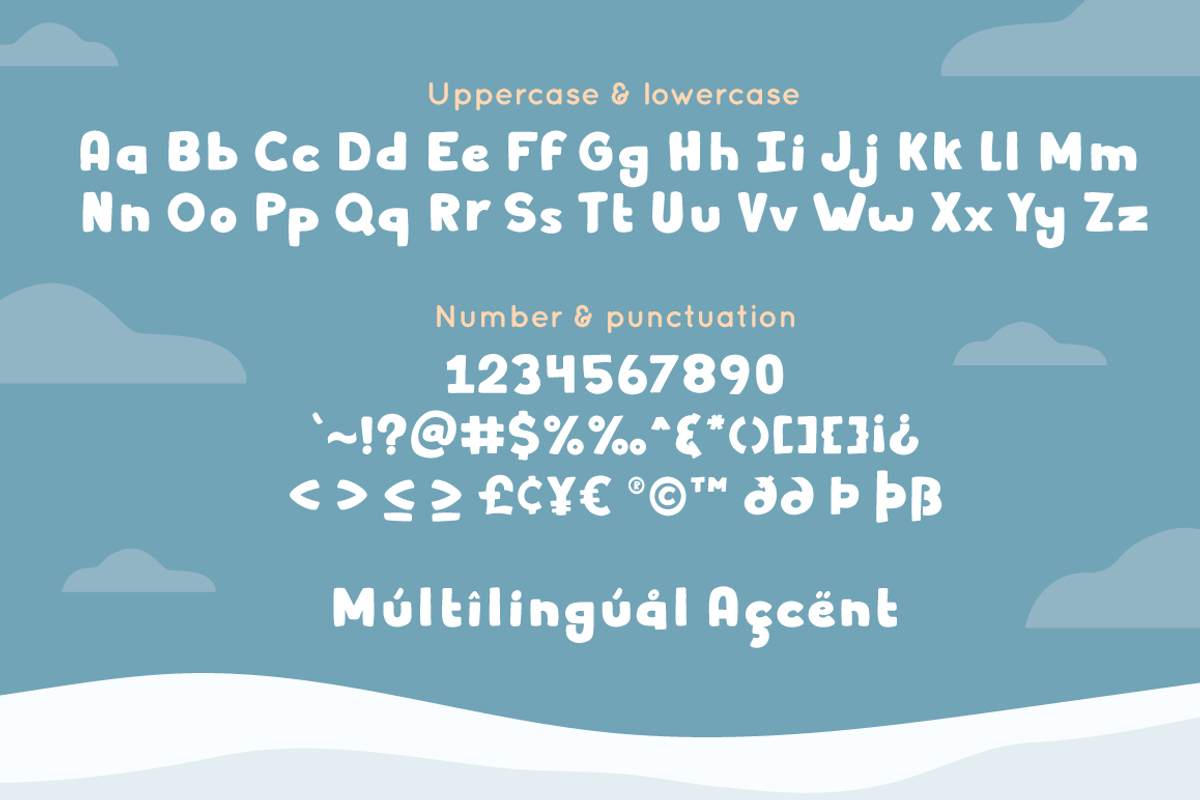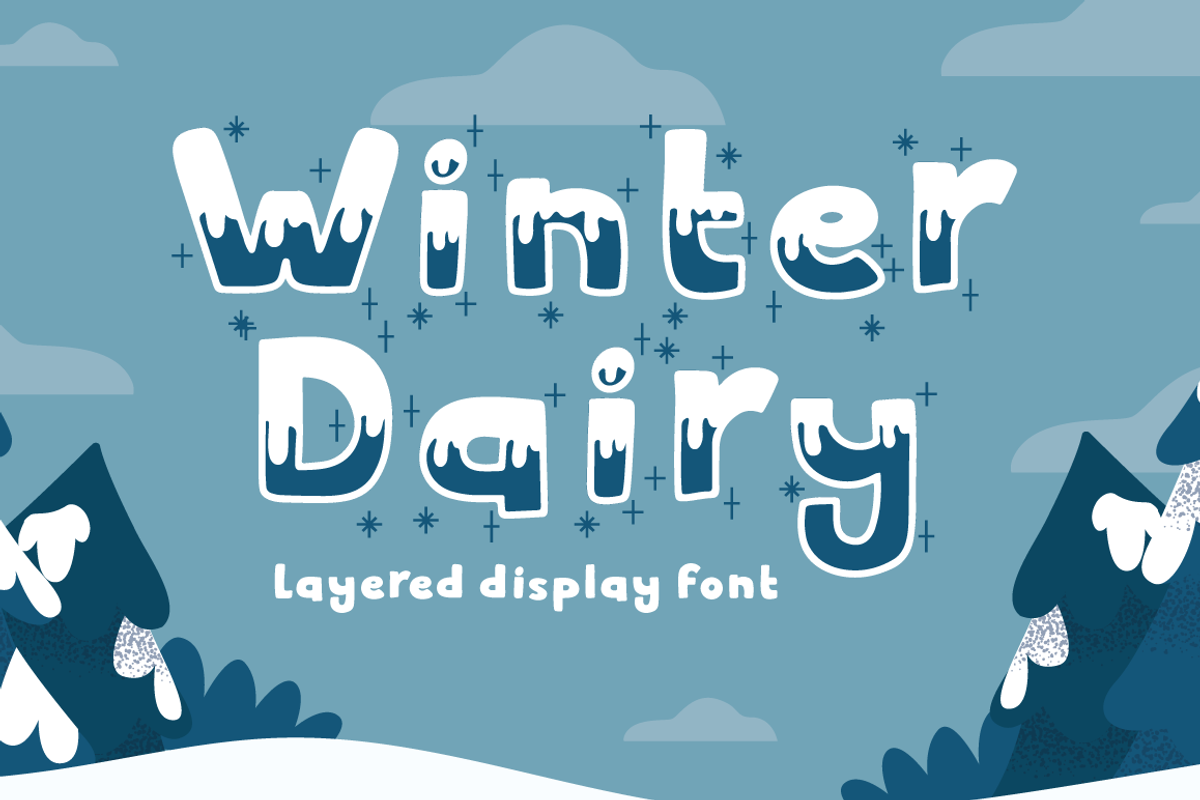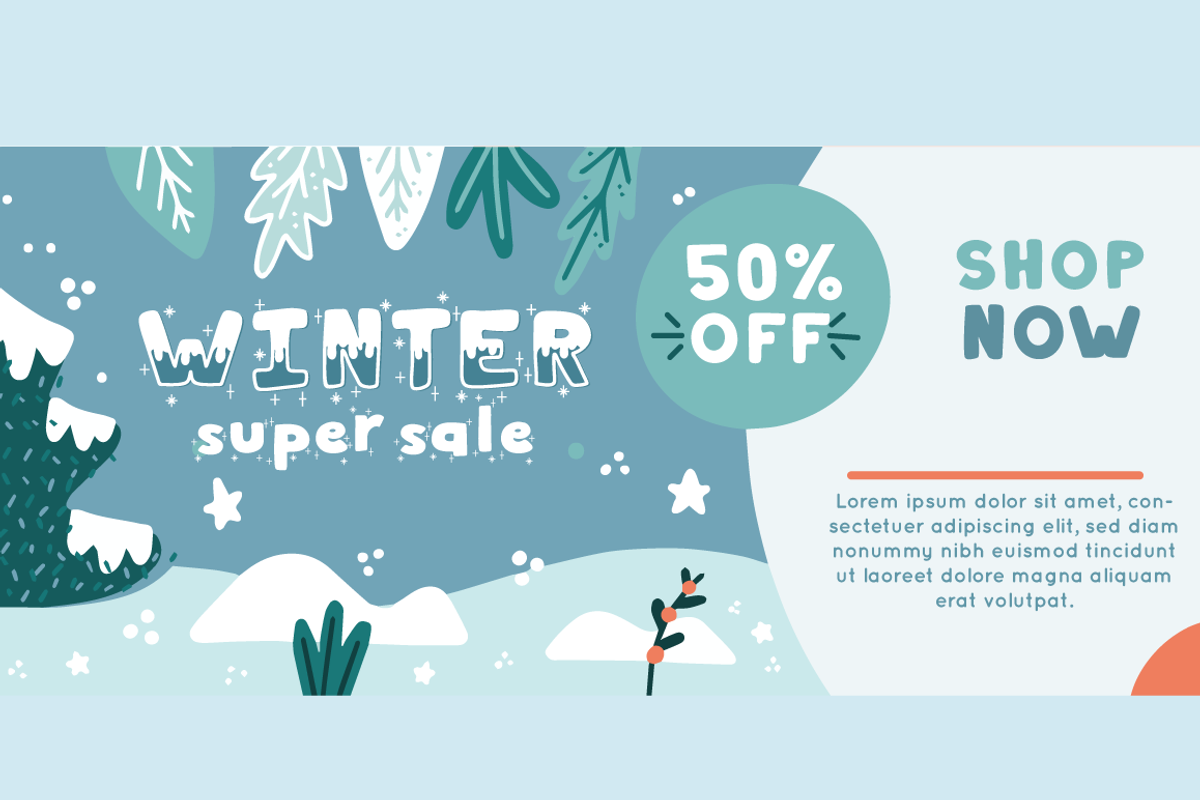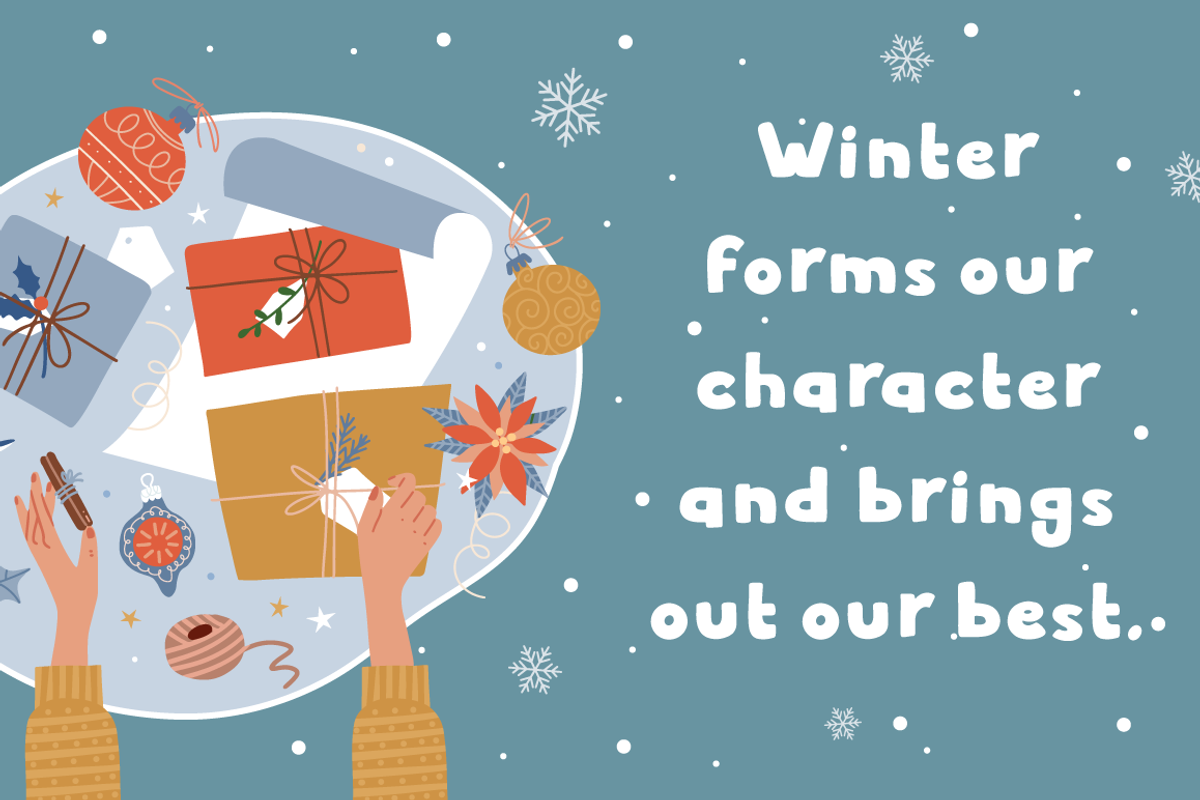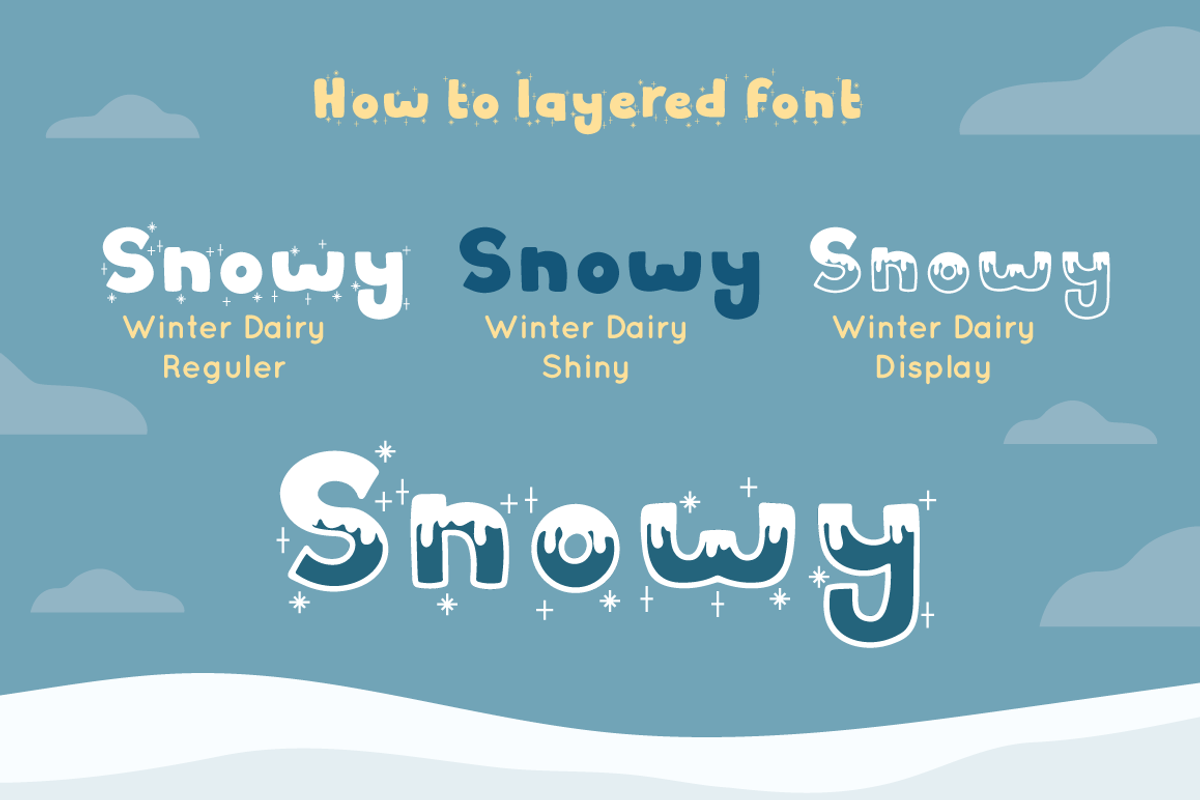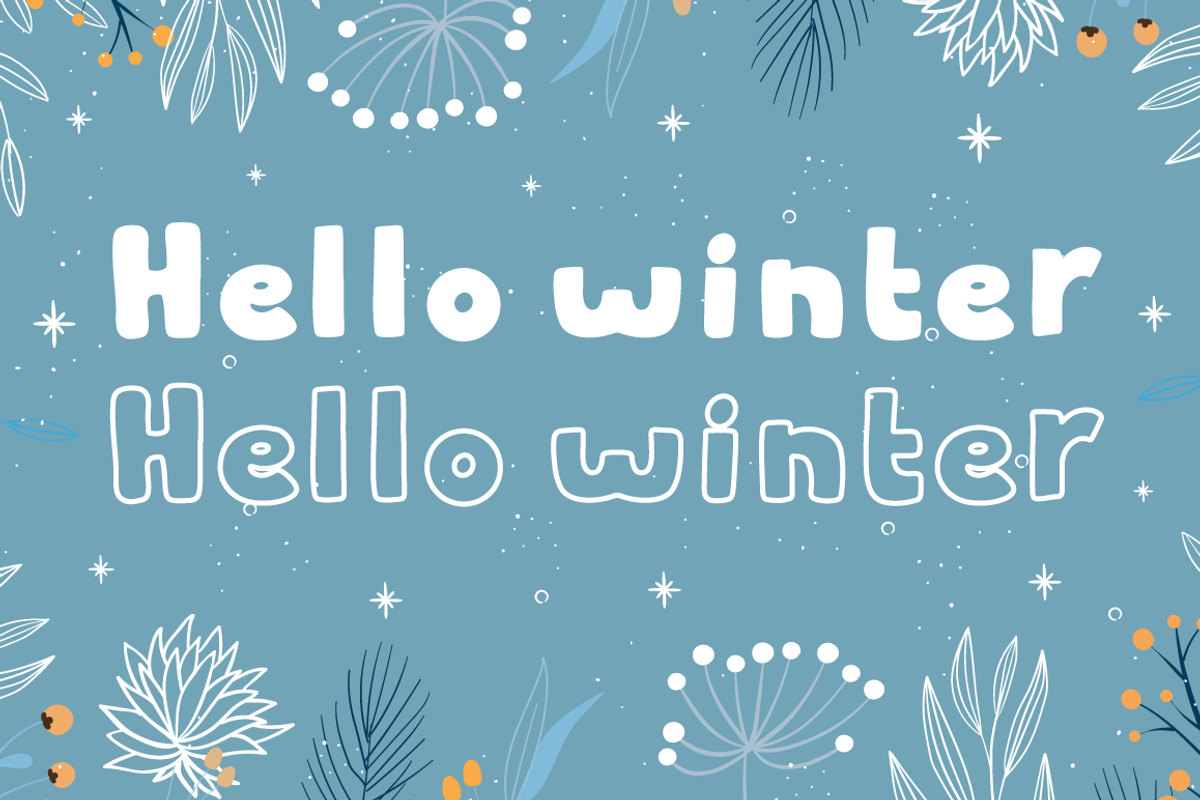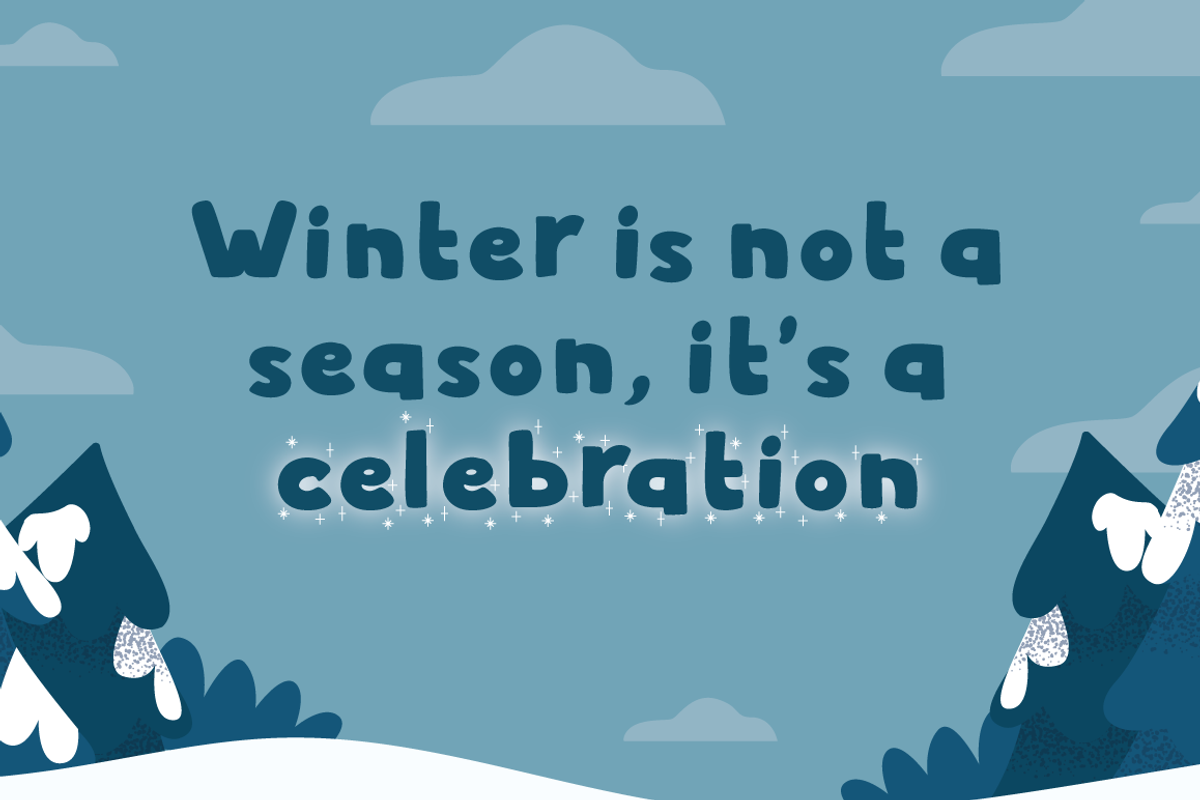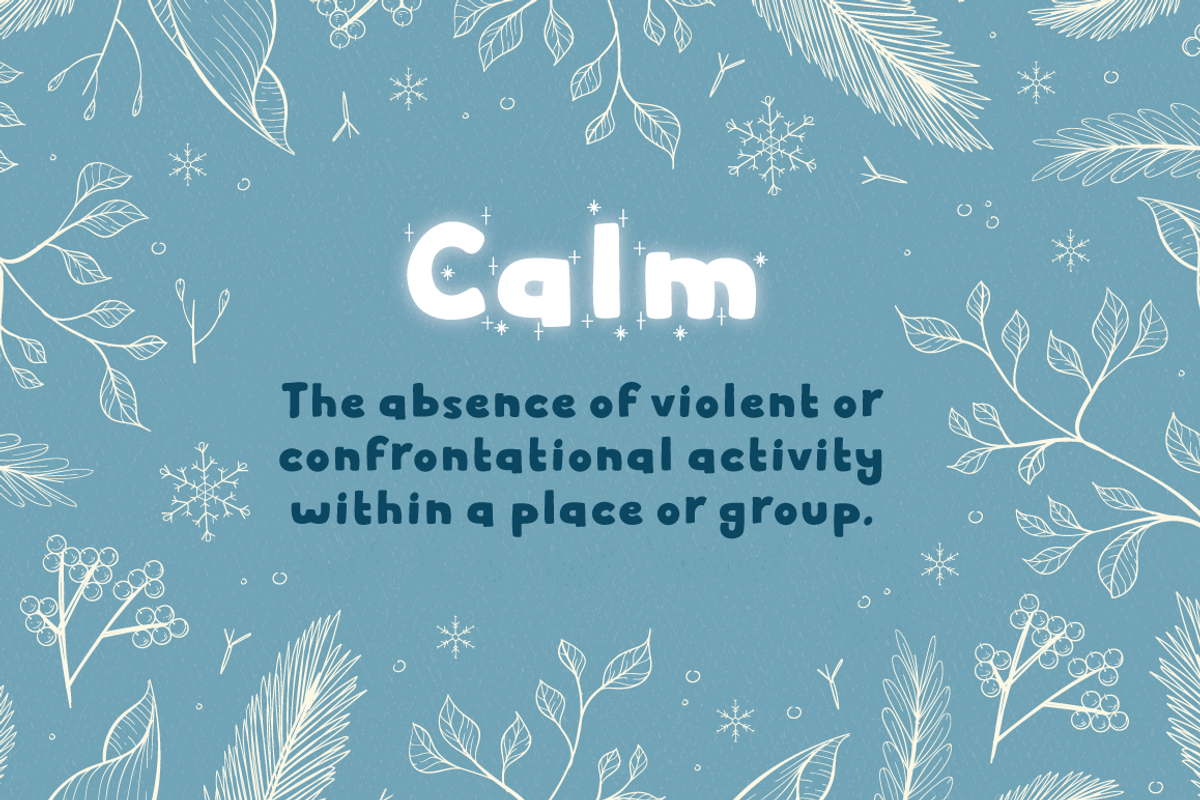
Winter Dairy - Christmas Font
Winter Dairy is a layered display christmas font with shiny & drop snow effect. This font perfect for winter designs. Combine it with Winter Dairy shiny & display style to make 3D effects better!
Winter Dairy perfect for christmas promotion, branding, logo, invitation, stationery, social media post, product packaging, merchandise, blog design, game titles, cute style design, Book/Cover Title and more.
- Layered Font